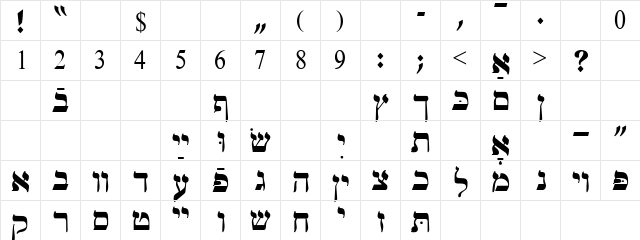
Ain Yiddishe Font-Traditional Regular
Design Context for Ain Yiddishe Font-Traditional Typeface
Ain Yiddishe Font-Traditional offers clean, dependable letterforms without strong stylistic allegiance, making it a practical choice for designers who need flexibility.